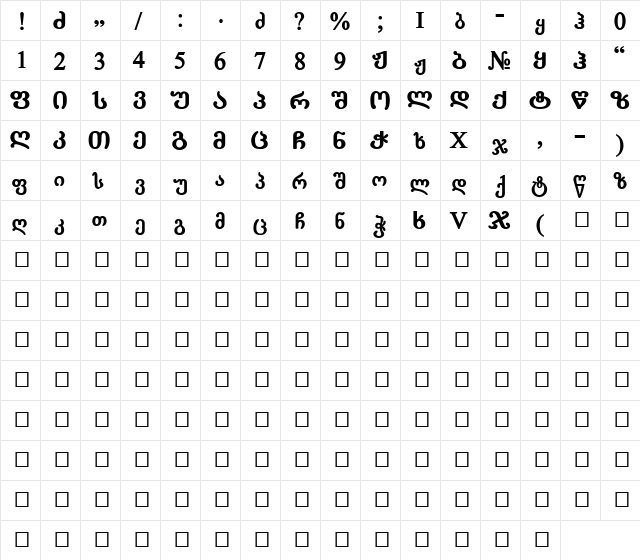
literaturuli_BJG_2000 Bold
Design Context for literaturuli_BJG_2000 Typeface
literaturuli_BJG_2000 takes a measured approach to typography — its balanced proportions and neutral character make it a reliable workhorse for both digital and print work. Its bold stroke weight gives it real presence on the page.